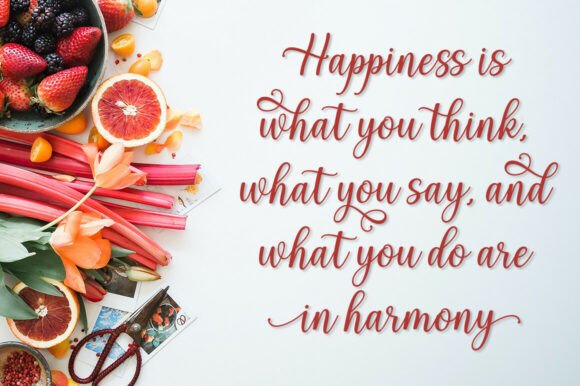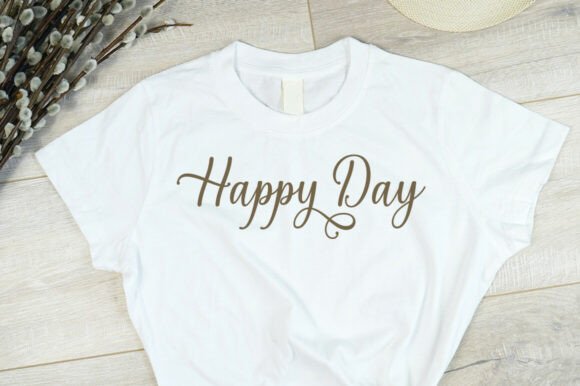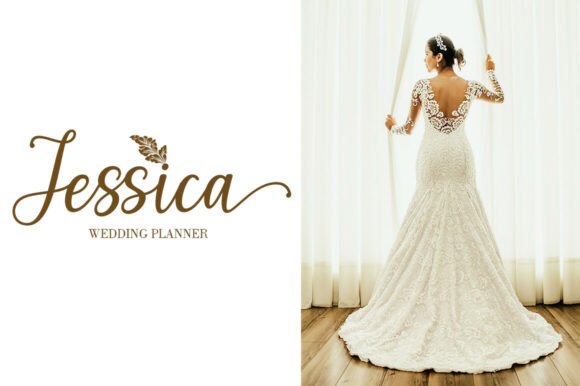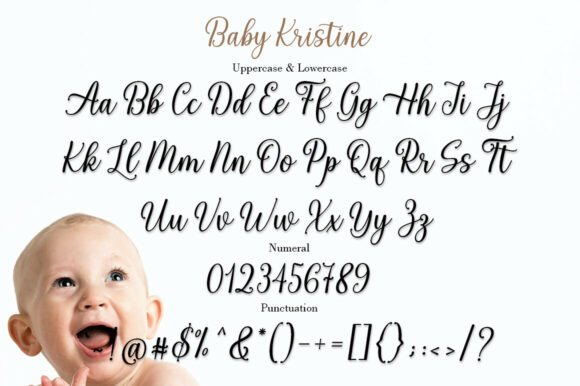
Discover the Sweet Romance of Baby Kristina Font
Have you ever stared at a beautiful quote or title and wished you could infuse it with a touch of elegance and whimsy? That’s exactly what happens when you bring Baby Kristina Font into your design projects. This charming calligraphic typeface is designed to add a luxurious feel to any text, making it perfect for quotes, titles, blogs, logos, branding, invitations, and more!
With Baby Kristina Font, you’ll be able to create designs that exude romance and sophistication. Its unique characters dancing along the baseline will capture the hearts of your audience, making it a valuable addition to any designer’s toolkit. And with its PUA encoding, accessing all the amazing glyphs and binders is a breeze. Whether you’re a seasoned designer or just starting out, Baby Kristina Font is sure to bring a touch of magic to your creations.
Baby Kristina Font Key Features
- Font Family: Baby Kristina Font is a handwritten font.
- Character Set: Includes a wide range of characters, including uppercase and lowercase letters, numbers, and punctuation.
- Unique Characteristics: This font features a playful, cursive style with unique flourishes and swashes, making it ideal for creative and artistic designs.
Baby Kristina Font Review
I recently had the chance to work with the Baby Kristina Font, and I must say it’s a delightful addition to any design project. ✨ The font’s playful, whimsical feel makes it perfect for children’s books, nursery decor, or any design that requires a touch of innocence and charm. The subtle nuances in letterforms and the use of rounded edges create a friendly, approachable vibe that’s hard to resist.
Some of the things that really stand out about Baby Kristina include:
- Its exceptional legibility, making it easy to read even at smaller font sizes.
- The wide range of languages it supports, including Latin, Cyrillic, and Greek.
- The font’s versatility, as it can be used for both digital and print projects.
- The font may not be the best choice for formal or professional projects, as its playful nature can come across as unprofessional.
- The font’s weight and style options are somewhat limited, which may not be ideal for designers who require a lot of customization options.
Overall, I think Baby Kristina is a wonderful addition to any design library, and I would highly recommend it for projects that require a touch of whimsy and charm. ⚠️ Just be mindful of its limitations, and use it in contexts where it will truly shine.
Getting the Most Out of Baby Kristina Font
To get the most out of Baby Kristina Font, use it in conjunction with pastel colors and whimsical illustrations. This font is perfect for creating a soft, feminine look that’s ideal for baby-related designs, such as nursery decor, baby shower invitations, and children’s clothing.
Some common use cases for Baby Kristina Font include: